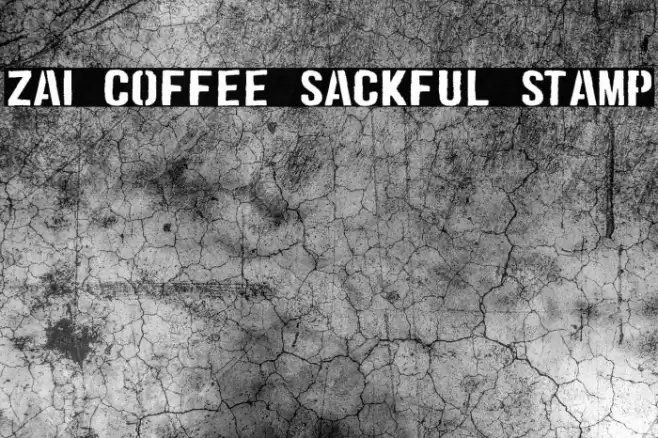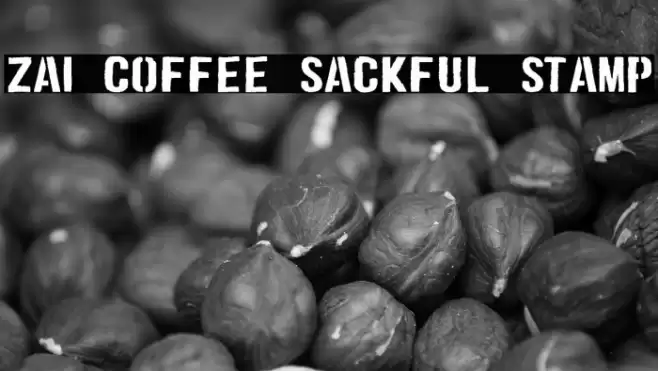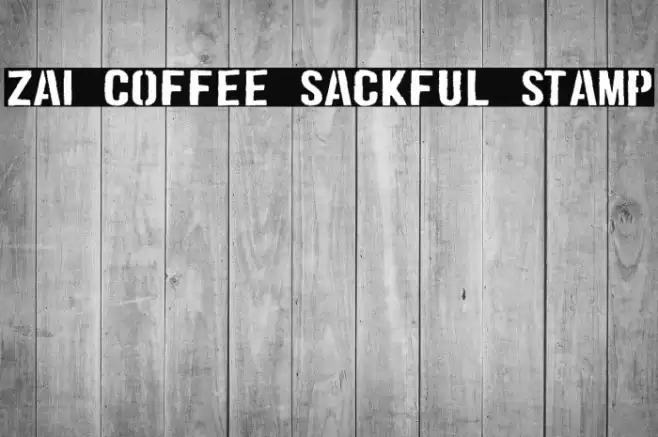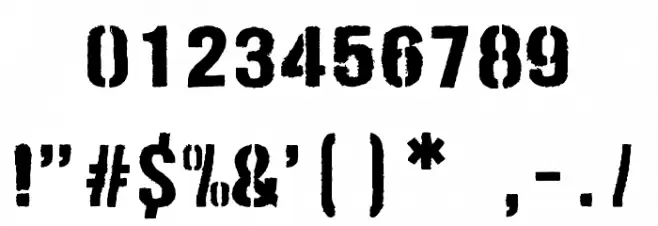
zai Coffee Sackful Stamp Font
zai Coffee Sackful Stamp Description
This font features a bold, distressed style reminiscent of vintage industrial stamps. The characters have a rough, textured appearance, giving them a rugged and authentic feel. The uppercase letters are prominent and sturdy, while the lowercase letters maintain the same boldness, ensuring consistency across text. Numbers and special characters follow the same design, making them suitable for various applications. The font's unique texture and bold presence make it ideal for projects requiring a strong, impactful look.
A bold, distressed font with a vintage industrial stamp style from Regular fonts.
- Proposed Projects: Ideal for branding, packaging, posters, and any design needing a vintage, industrial feel.
- Overall Style: Vintage